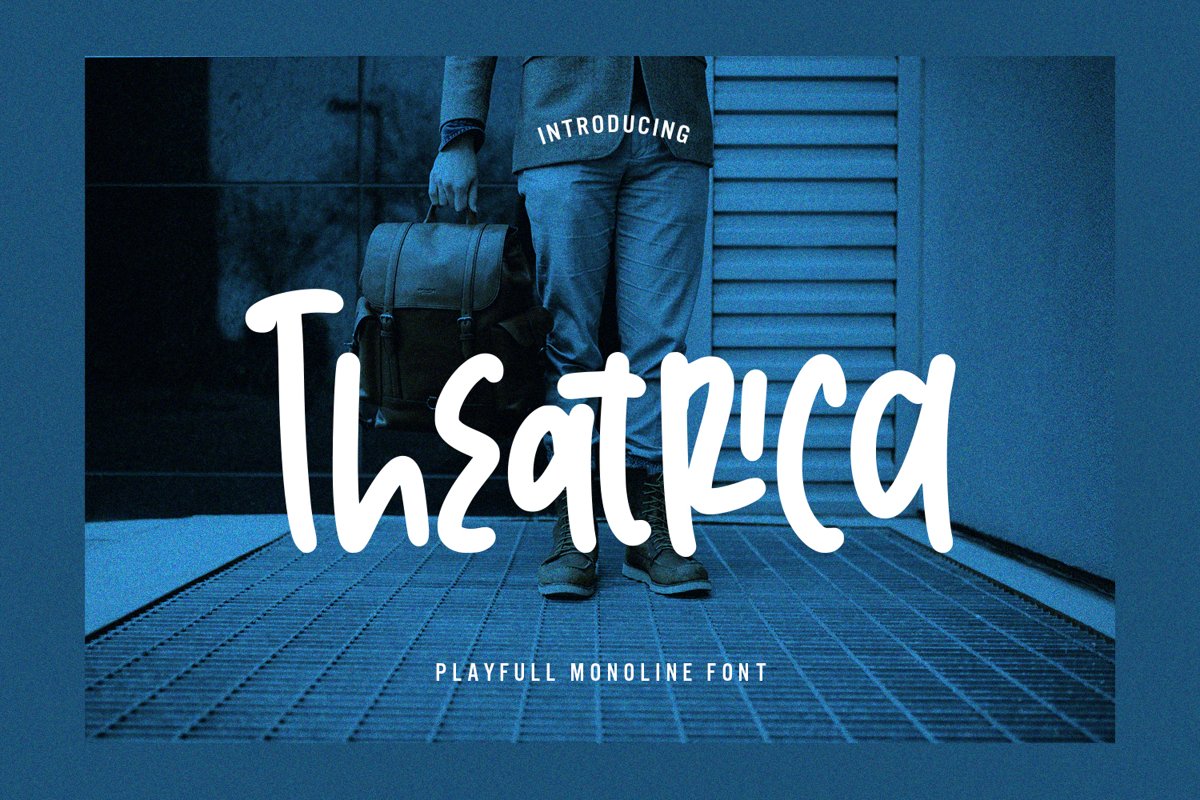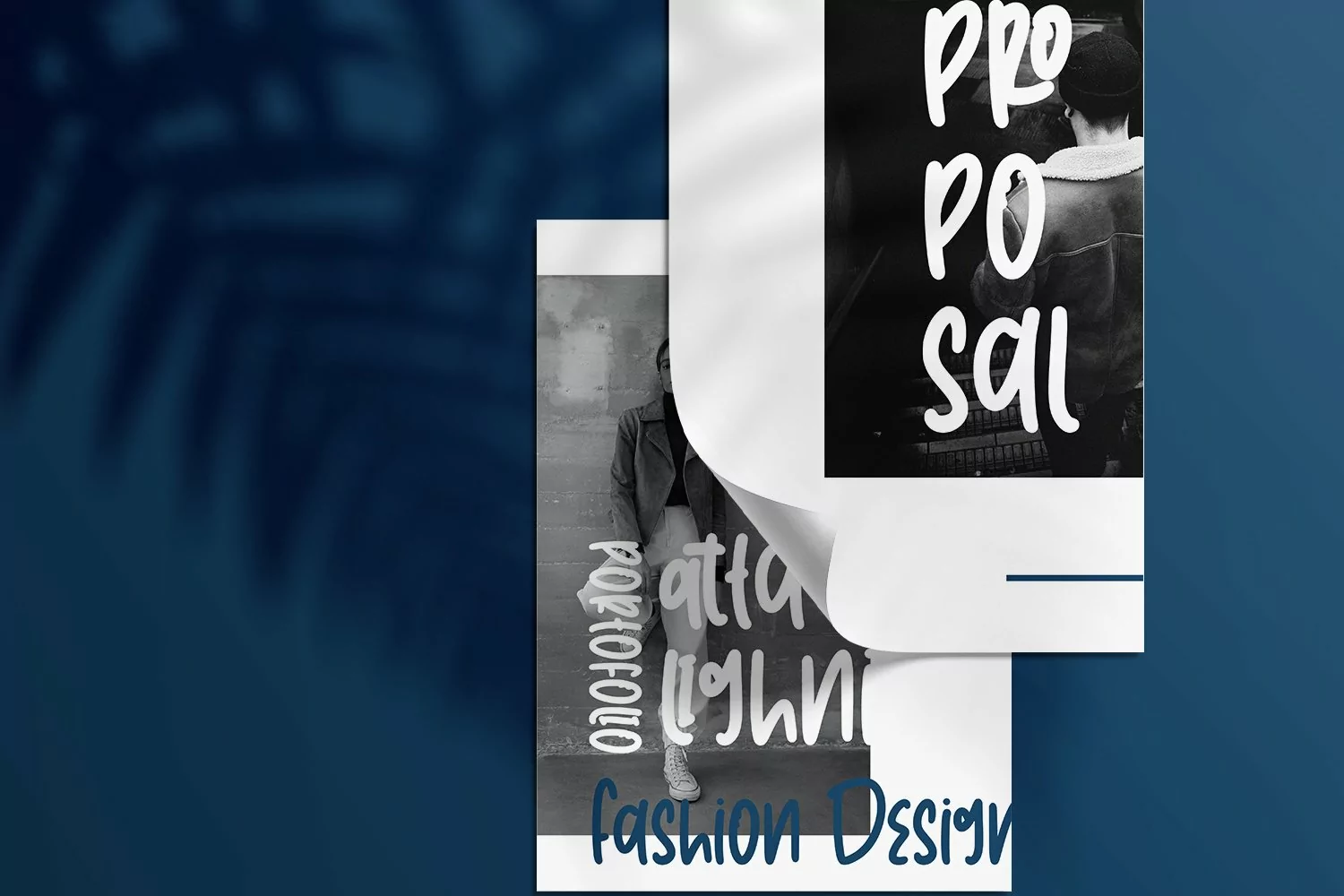
Theatrica - Playfull Monoline Font that contain lowercase, uppercase, symbol, and also support multi language. There’s a lot ligatures in this font. This Font also comes with ligatures, alternates and many more. this font suitable for fashion, branding, catalog and other design what you want.
Theatrica